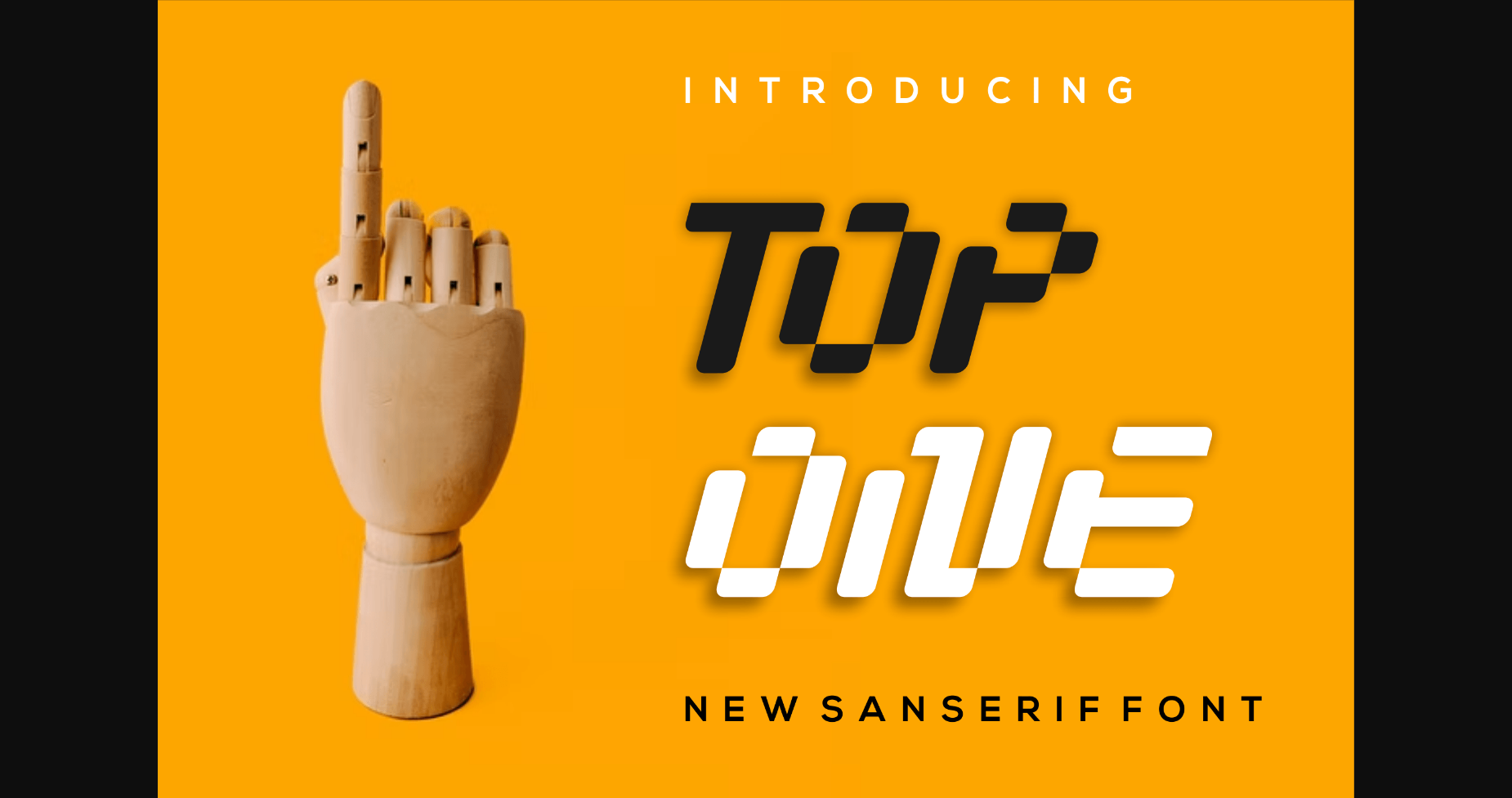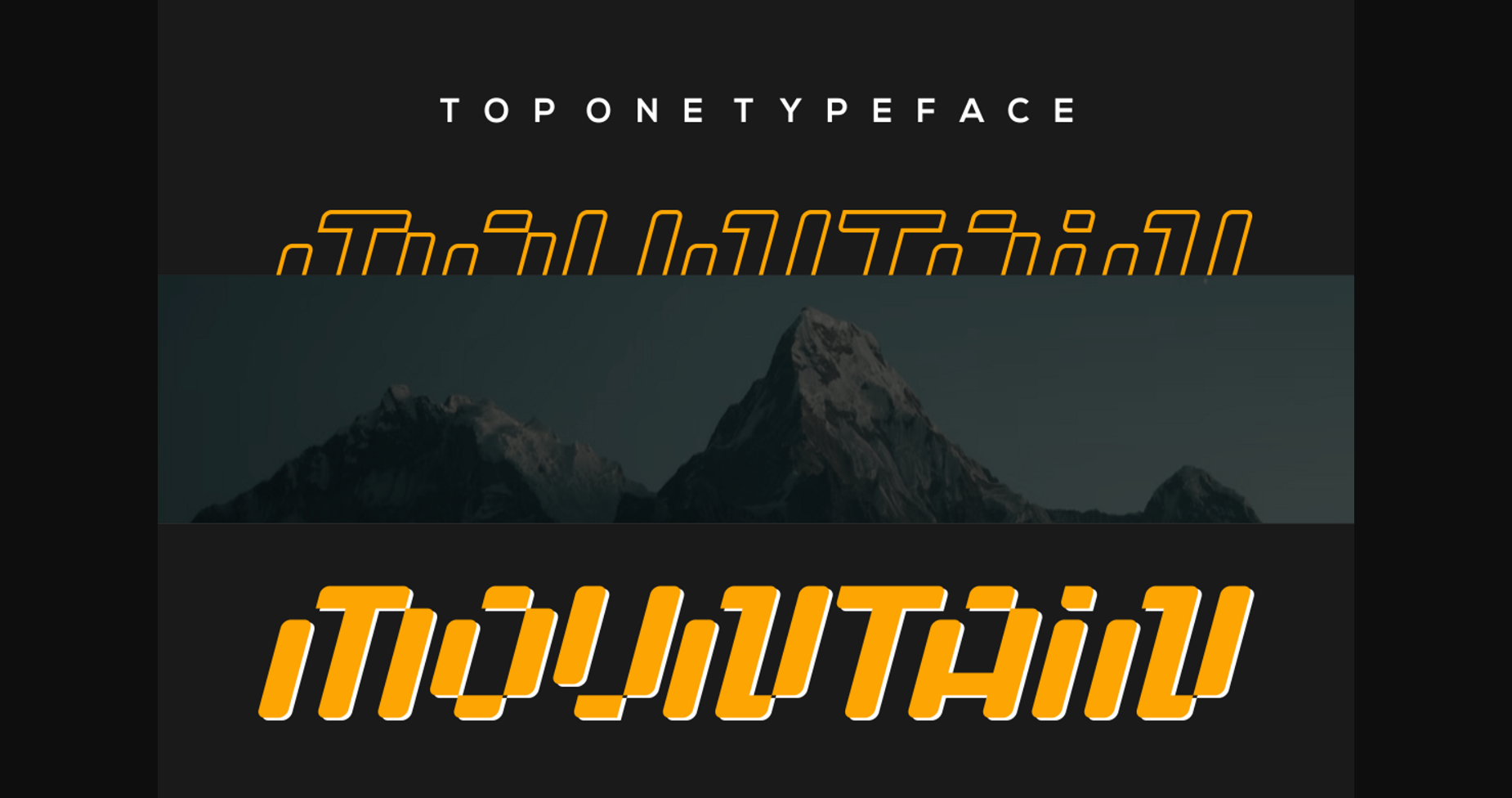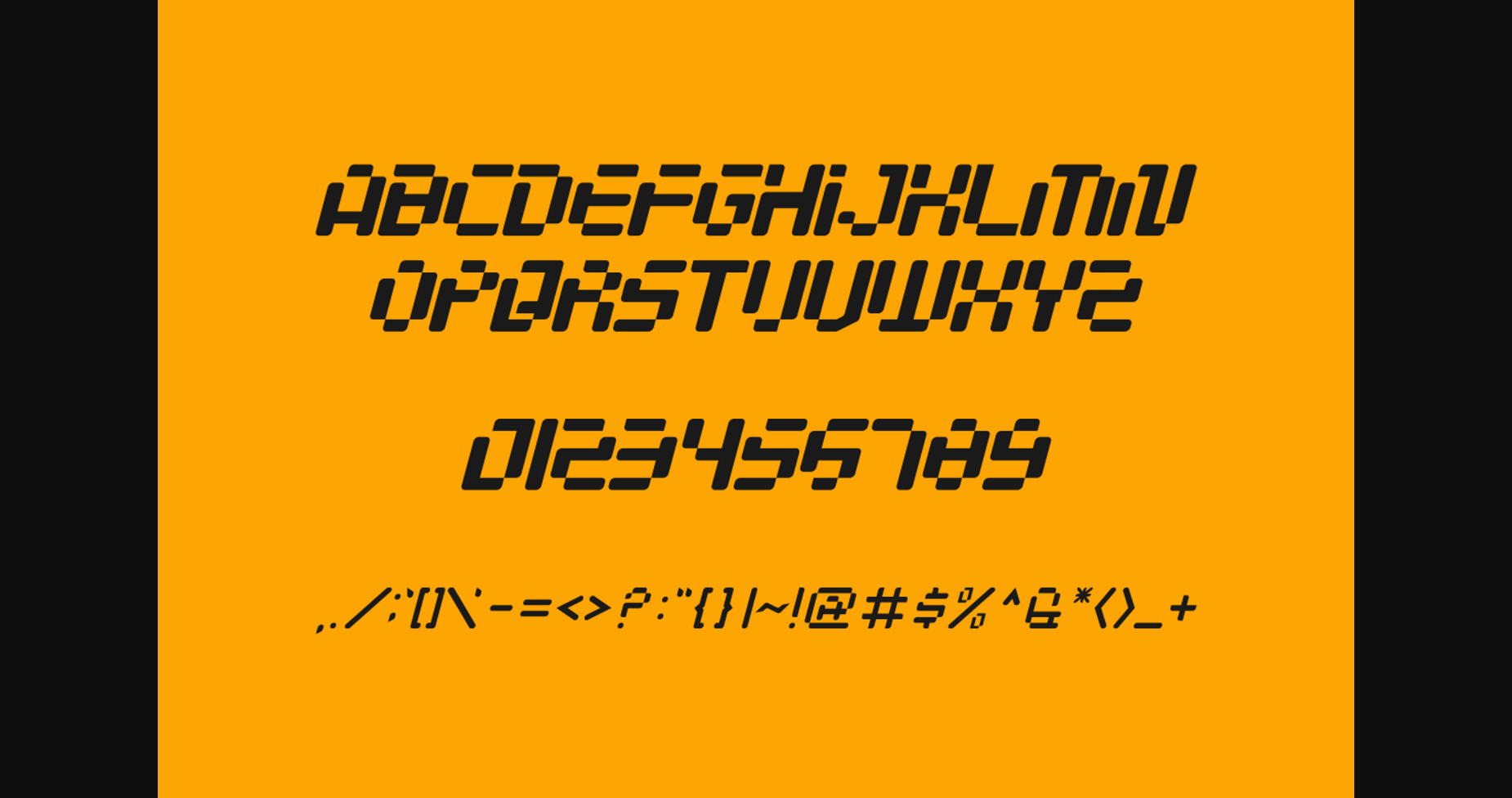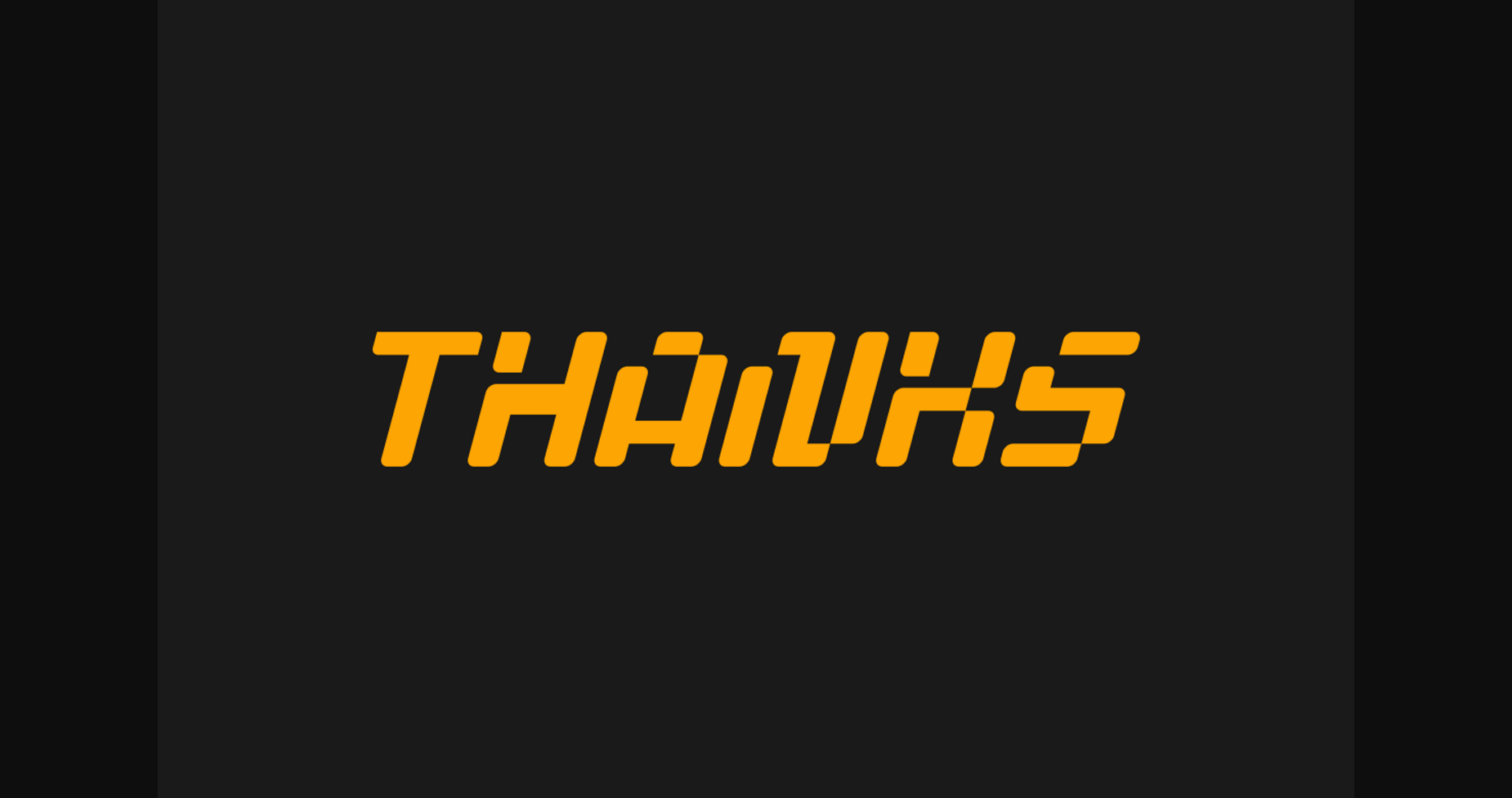
Topone Font
About Topone Font
TopOne Font – Modern Font is a bold and authentic display font. The font is suitable for any branding project like logo, t-shirt printing, esport, and many more. outstanding in a wide range of contexts.